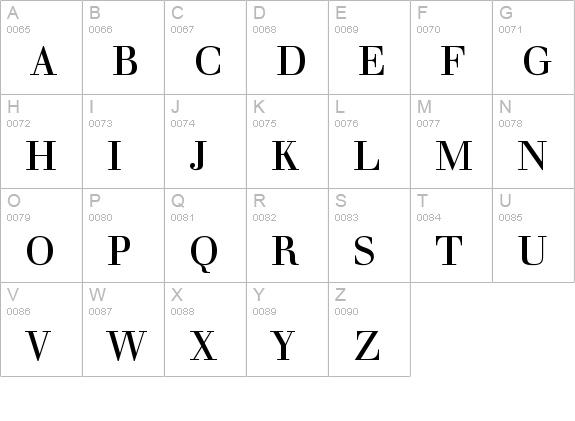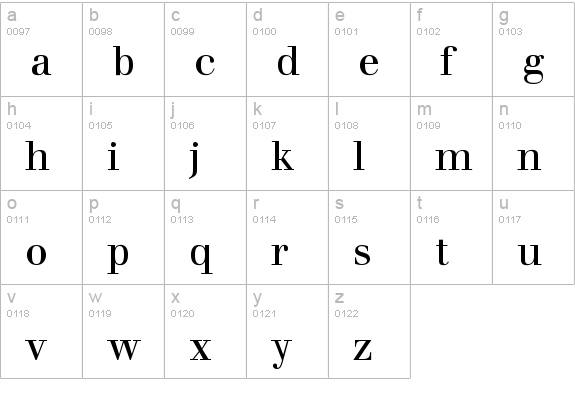
12 Walbaum** Roman 05263 Font Details
Introducing the exquisite Walbaum Roman 05263 font, a true embodiment of elegance and sophistication. With its timeless appeal and meticulous attention to detail, this font is a must-have for any designer or typographer looking to add a touch of class to their projects. The Walbaum Roman 05263 font showcases a perfect balance between traditional and contemporary design elements, making it versatile and suitable for a wide range of applications. Its clean lines and graceful curves effortlessly convey a sense of professionalism and refinement, making it ideal for editorial designs, branding, packaging, and more. One of the best things about the Walbaum Roman 05263 font is that it is freely available to download at FontsMarket.com. This means that you can access this exceptional font without any hassle or cost, allowing you to explore its endless creative possibilities without limitations. Whether you're designing a magazine spread, creating a logo, or crafting a wedding invitation, the Walbaum Roman 05263 font will undoubtedly elevate your project to new heights. Its legibility and aesthetic appeal make it a perfect choice for both body text and headlines, ensuring that your message will be communicated with clarity and style. Don't miss out on this incredible opportunity to enhance your design work with the Walbaum Roman 05263 font. Visit FontsMarket.com today and download this exceptional font for free. Experience the beauty and versatility of this typeface and unlock a world of creative possibilities.